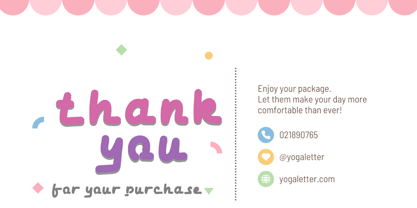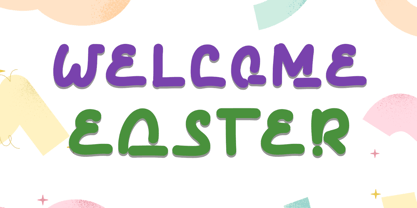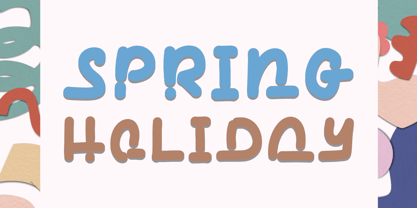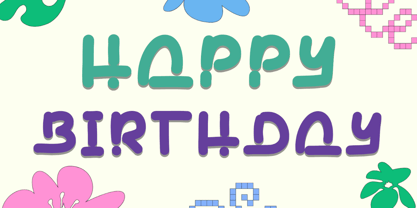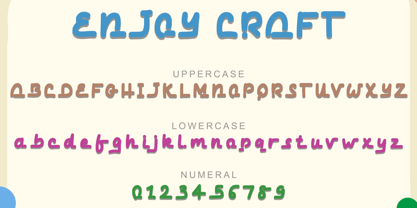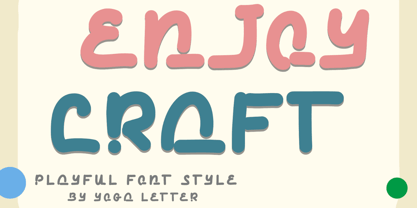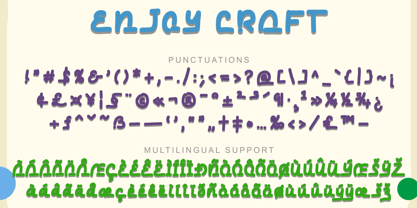
Enjoy Craft
by Yoga Letter
The Enjoy Craft Font Family was designed by Isroni Yoga Prasetya and published by Yoga Letter. Enjoy Craft contains 1 styles. More about this family
"Enjoy Craft" is a unique and cute display font. This font is equipped with uppercase, lowercase, numerals, punctuations and multilingual support. It is very suitable for use in spring, summer, easter, birthday, comic, coloring book, drawing book, funny movie titles, stickers, posters, prints and others.